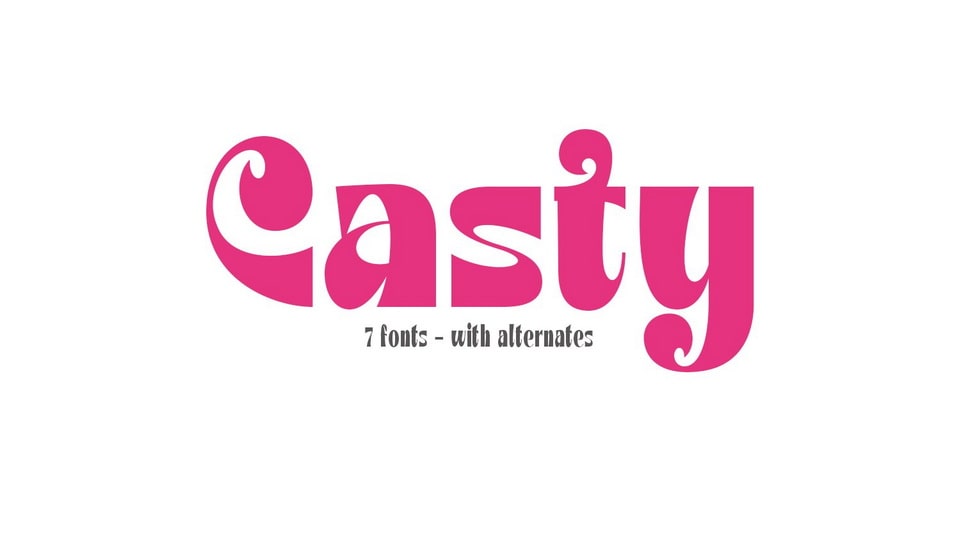
Download Casty font, a fancy and playful display typeface with retro vibe. Use Casty font for any branding, product packaging, invitation, quotes, t-shirt, label, poster, logo etc.
Designer: TypeClassHeroes